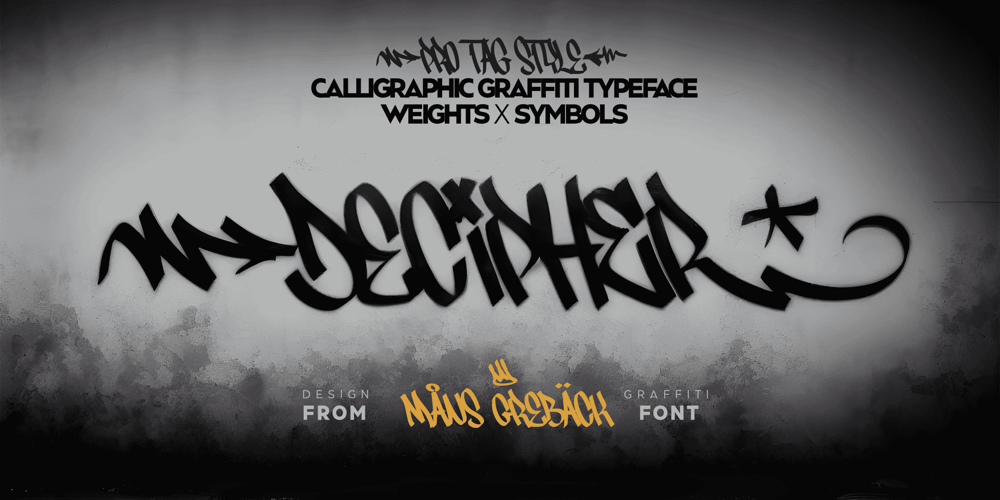
Decipher Font Family was designed by Måns Grebäck and published by Mans Greback. Decipher contains 4 styles and family package options. Decipher, designed by Mans Greback, is an edgy graffiti-inspired font that captures the essence of street art and hip-hop culture. With its cool, calligraphic and marker-style handwriting, Decipher brings the energy and speed of urban life into your designs. Perfect for projects that require a touch of street-smart attitude, this font will take your creations to the next level.The typeface comes in four styles: the Regular style and the Symbols style, both provided in Bold. The Symbols style is a unique addition, offering a variety of tag elements such as swashes, arrows, stars, and crowns to enhance your designs further and unleash your creativity.The font is built with advanced OpenType functionality and has a guaranteed top-notch quality, containing stylistic and contextual alternates, ligatures, and more features; all to give you full control and customizability. It has extensive lingual support, covering all Latin-based languages, from Northern Europe to South Africa, from America to South-East Asia. It contains all characters and symbols you’ll ever need, including all punctuation and numbers.Mans Greback is a Swedish typeface designer dedicated to crafting diverse and versatile fonts. With a passion for a wide range of typographic styles, he has developed a range of fonts that are appreciated and utilized by designers around the world.